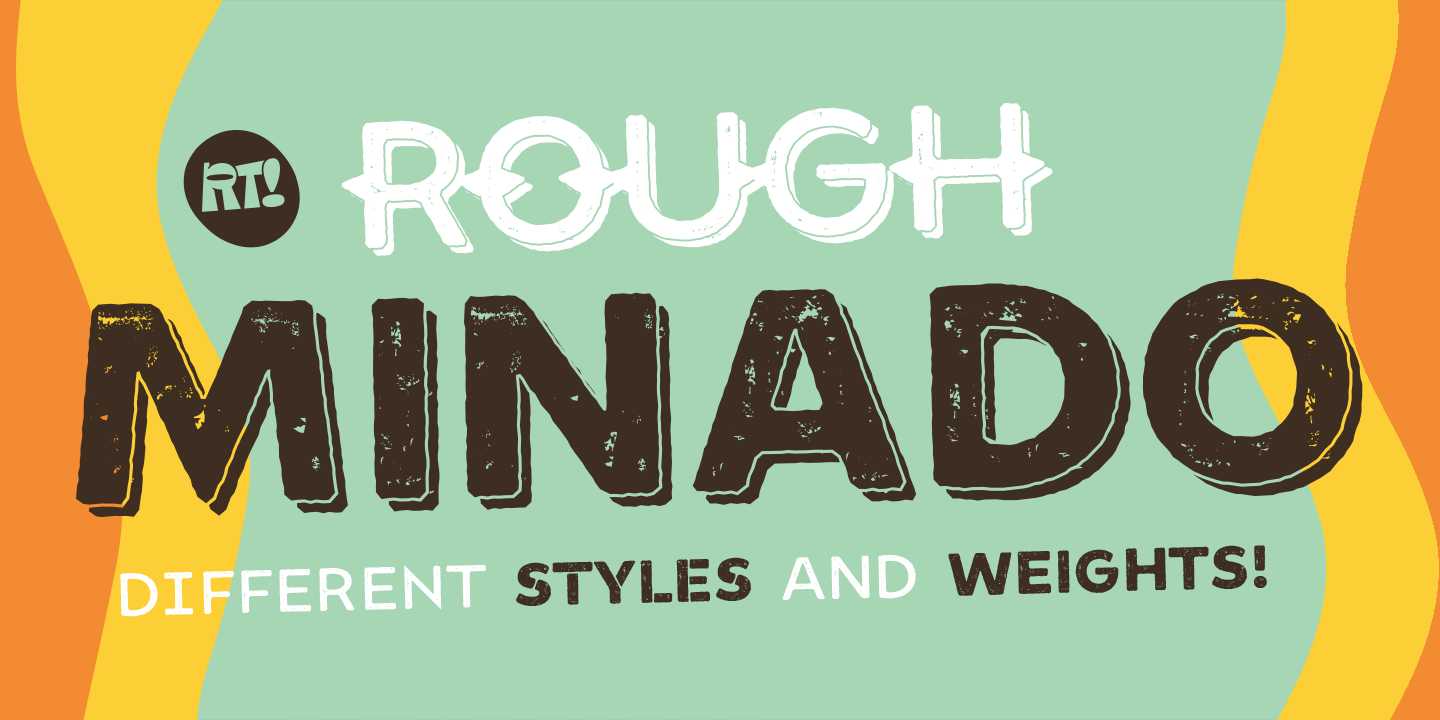
Minado Rough Font is perfect for mining industry branding, geological exploration companies, industrial heritage museums, rugged outdoor equipment, construction company communications, heavy machinery marketing, quarry operations signage, mining safety materials, extraction industry publications, industrial archaeology projects, rough terrain vehicle branding, and authentic underground industry communications.
This font is exciting because it captures the raw power and industrial grit of mining operations, featuring powerfully textured letterforms that emerge from the page with the same rugged determination and underground strength found in the dangerous work of extracting precious minerals and coal from deep beneath the earth's surface, where miners risk their lives daily to bring essential resources to the surface through backbreaking labor that demands both physical courage and unwavering determination. The robustly crafted character design embodies both the harsh working conditions of underground mining and the essential importance of extraction industries that provide the raw materials for modern civilization, creating typography that feels both industrially authentic and respectfully powerful. Each letter bears the marks of hard work and dangerous conditions that transform ordinary text into declarations worthy of the brave workers who descend into darkness to power the modern world.
The Minado Rough Font family includes regular and bold weights with complete character sets featuring industrial numerals, rugged punctuation marks, and textural elements inspired by mining equipment, geological formations, industrial machinery, and underground working environments. Advanced versions may offer additional stylistic variants with enhanced rough textures, alternate characters that reflect natural wear patterns, and industrial ornaments that celebrate the heritage of mining operations and extraction industry traditions.
Whether you're developing mining industry branding, creating industrial heritage materials, or designing rugged equipment marketing, Minado Rough Font Free Download provides the industrial authenticity and underground power your project needs to honor the essential work of extraction industries while connecting with audiences who appreciate the courage and determination required for dangerous underground labor. This typeface transforms ordinary text into industrial declarations that celebrate both the physical demands of mining work and the vital importance of extraction industries. The font's industrial character makes it essential for companies and organizations serving the mining and extraction industries. Mining industry professionals and industrial heritage advocates will appreciate how this font brings authentic underground tradition to their work with its genuinely rugged and industrially powerful character that goes deep.